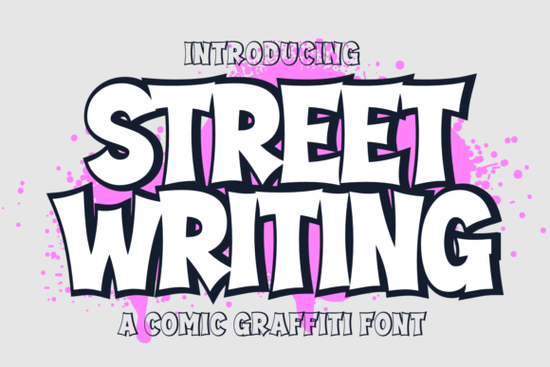
If you are looking for a typeface that brings urban energy to your projects, the Street Writing Font is a strong contender. This graffiti-style typeface is built for designers who need bold lettering that grabs attention immediately. Whether you are creating a logo for a skate shop or designing packaging for a streetwear brand, this font offers the visual punch required to stand out. It combines a cartoonish feel with the rough edges of classic graffiti, making it versatile enough for both playful and serious branding tasks.
What makes this graffiti style work for branding?
Branding requires consistency, but it also needs personality. A graffiti font can sometimes feel too messy for professional use, but this specific set balances style with readability. The letters are designed to look hand-painted without sacrificing legibility. This is crucial when customers need to read your business name quickly. If you are exploring similar playful styles, you might also consider checking out Retro Kids for a softer, nostalgic vibe that still maintains character.
The key here is the extrude option included in the package. This allows you to add depth to your text, making it look three-dimensional. When you apply this to a logo, it creates a sense of substance. It stops the text from looking flat on a screen or a printed shirt. For designers who enjoy experimenting with dimension, comparing this to something like Marshmellow can help you understand how different weights affect the overall feel of a design.
Where can you use these cartoon letters effectively?
The versatility of this font extends beyond just logos. It is highly effective for comic book lettering where dialogue needs to pop off the page. The bold strokes ensure that text remains visible even against busy backgrounds. Print-on-demand sellers will find this useful for t-shirt designs, especially those targeting youth markets or urban culture enthusiasts. You might see similar applications in projects using the Mario Font, which also leans into bold, recognizable shapes for merchandise.
Additionally, this typeface works well for creating striking watermarks on digital art. Because the style is distinct, it protects your work without blending into the background. Event posters for music concerts or local markets also benefit from this aesthetic. The goal is to convey excitement before the viewer even reads the details. If you need something more futuristic for a tech event, you might look at Nebulan Star, but for ground-level urban events, this graffiti style remains the top choice.
How do you handle the extra style options?
Having two font combinations regular and extrude gives you flexibility without needing to buy separate packages. You can mix these styles within a single design to create hierarchy. For example, use the regular style for body text and the extrude version for headlines. This keeps the design cohesive while guiding the viewer's eye. It is important to test both versions at different sizes to ensure the details hold up when scaled down for social media profiles.
The set includes a complete range of uppercase and lowercase letters, numerals, and punctuation. This completeness means you won't run into missing characters when writing addresses or phone numbers on promotional materials. Good typography relies on having all the necessary tools in one place. While this font is display-focused, pairing it with a serif font for long descriptions can improve readability. A classic choice like Cormorant Garamond works well underneath bold graffiti headers to ground the design.
What steps should you take before finalizing your design?
Before you commit to this typeface for a client project, there are a few practical checks to run. Download the files and install them on your working machine. Open your design software and type out the full alphabet to check for any spacing issues. Kerning can sometimes be tricky with decorative fonts, so manual adjustments might be needed. Always preview your design on different devices to ensure the graffiti effects render correctly on mobile screens.
To help you get started, here is a quick checklist for using this font in your next project:
- Test Legibility: Print a sample at the intended size to ensure the graffiti details don't blur.
- Check Contrast: Make sure the text color stands out clearly against your background image.
- Use Layers: Keep the text on a separate layer so you can easily switch between regular and extrude styles.
- Pair Wisely: Combine with a simple sans-serif or serif font for body copy to avoid visual clutter.
Taking these steps ensures that your final output looks professional and meets the needs of your audience. With the right preparation, this tool can become a staple in your design library for any project requiring bold, urban expression.